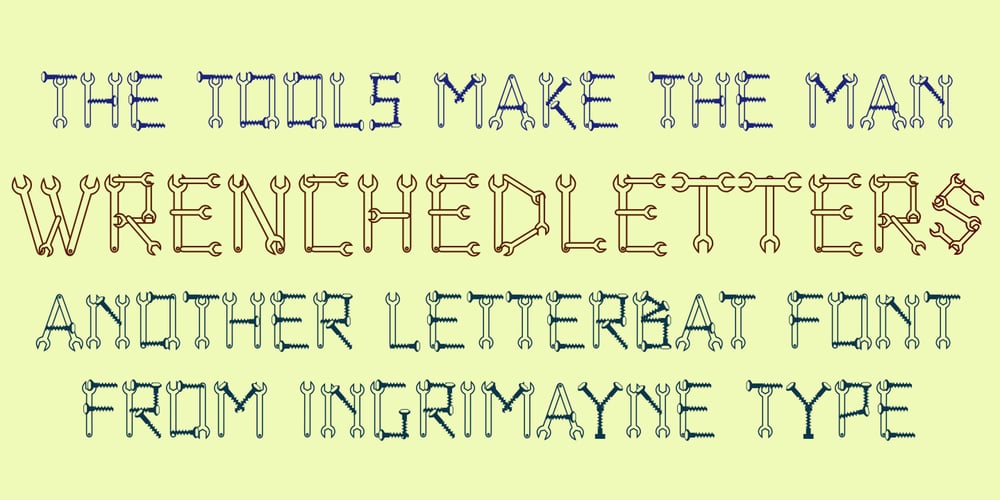
WrenchedLetters Font Family was designed by Robert Schenk and published by Ingrimayne Type. WrenchedLetters contains 1 styles and family package options. WrenchedLetters is a novelty font in which characters are composed of wrenches and bolts. It is caps only, but the characters on the lower-case keys differ from those on the upper-case keys. It has a large set of accented characters. It is not often that one needs a typeface made of wrenches and bolts, but if one does, there is a font for that. For related, tool-based typefaces, see Screwged, NailsNStaples, and Hammered.